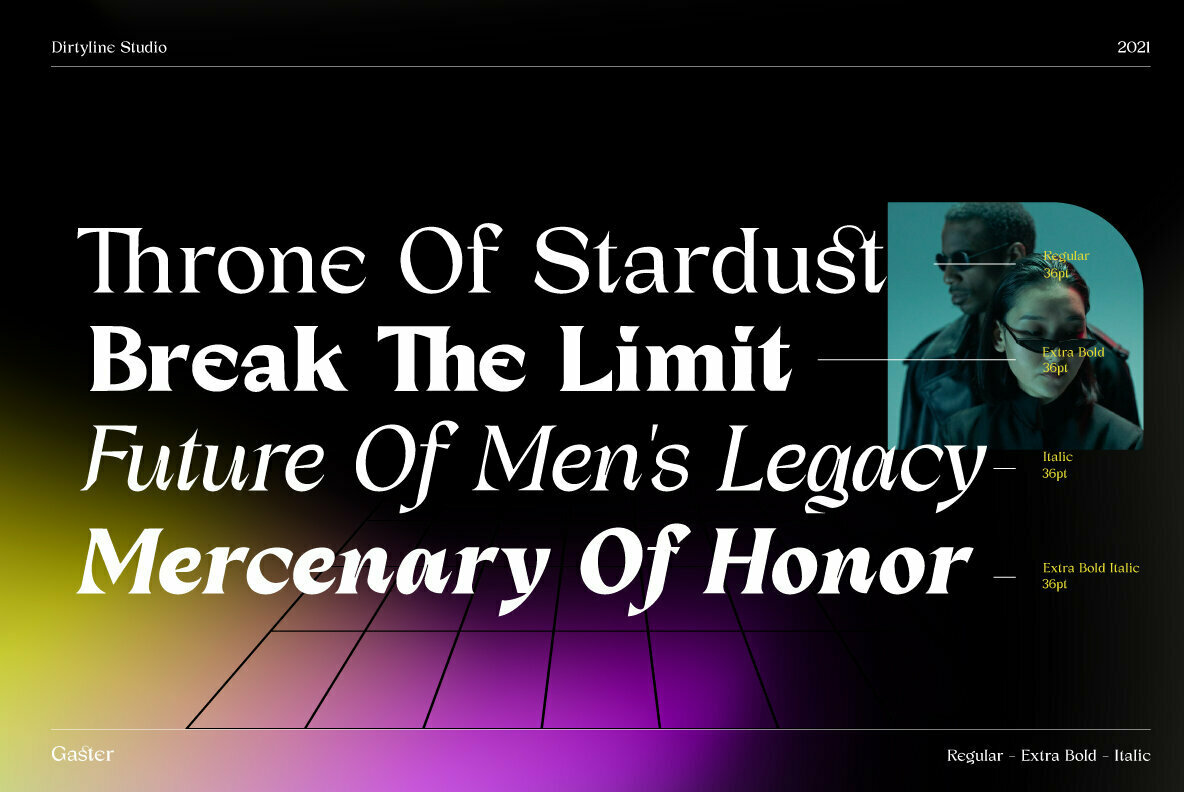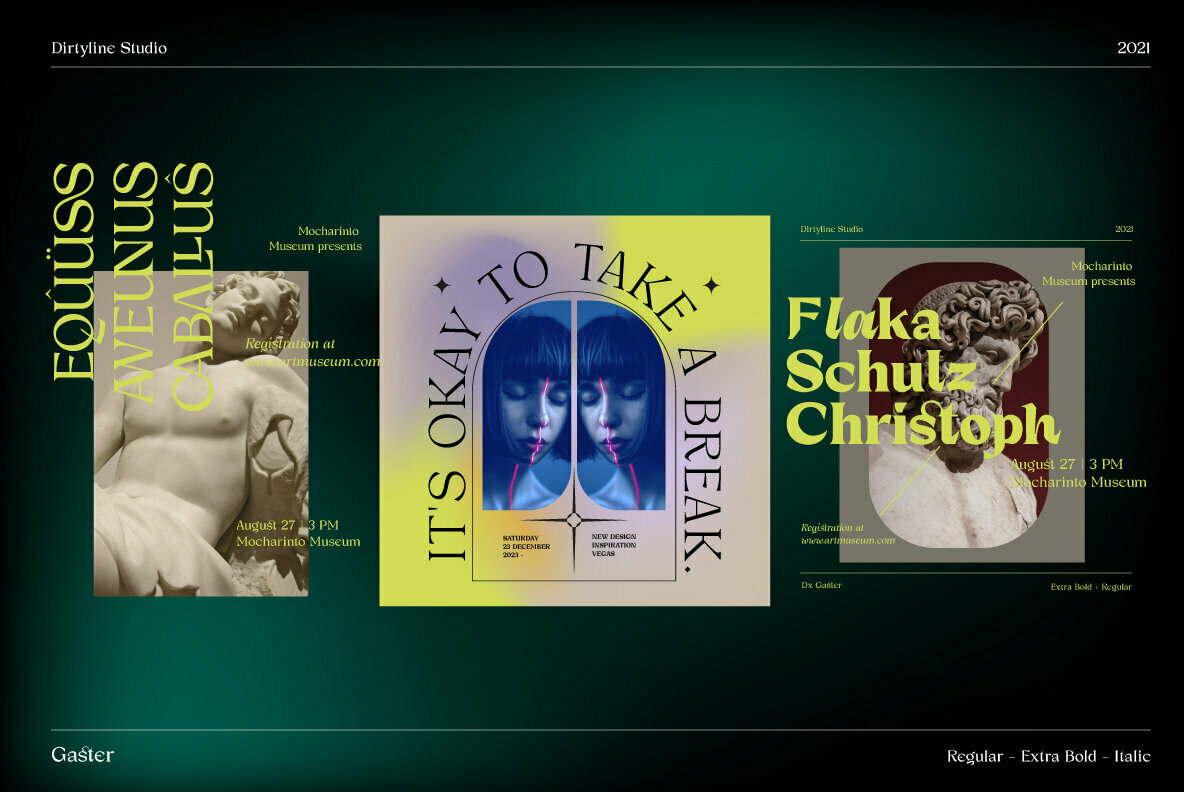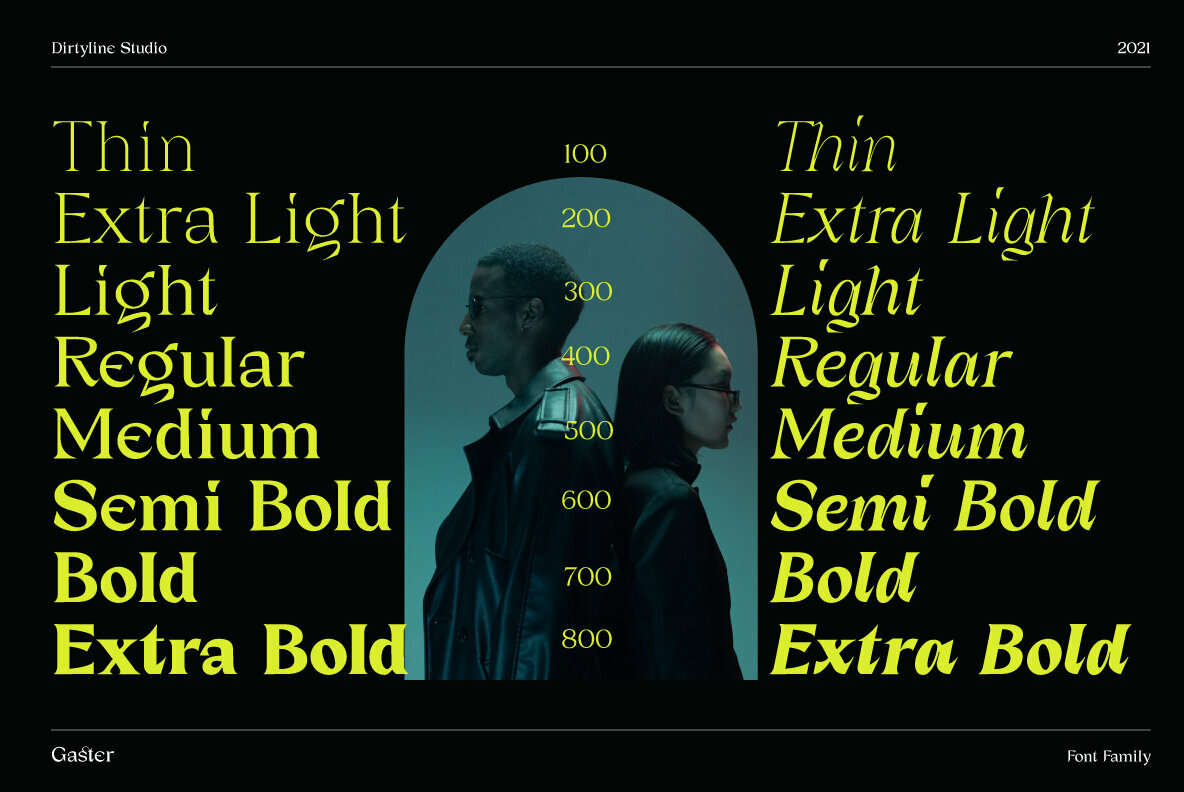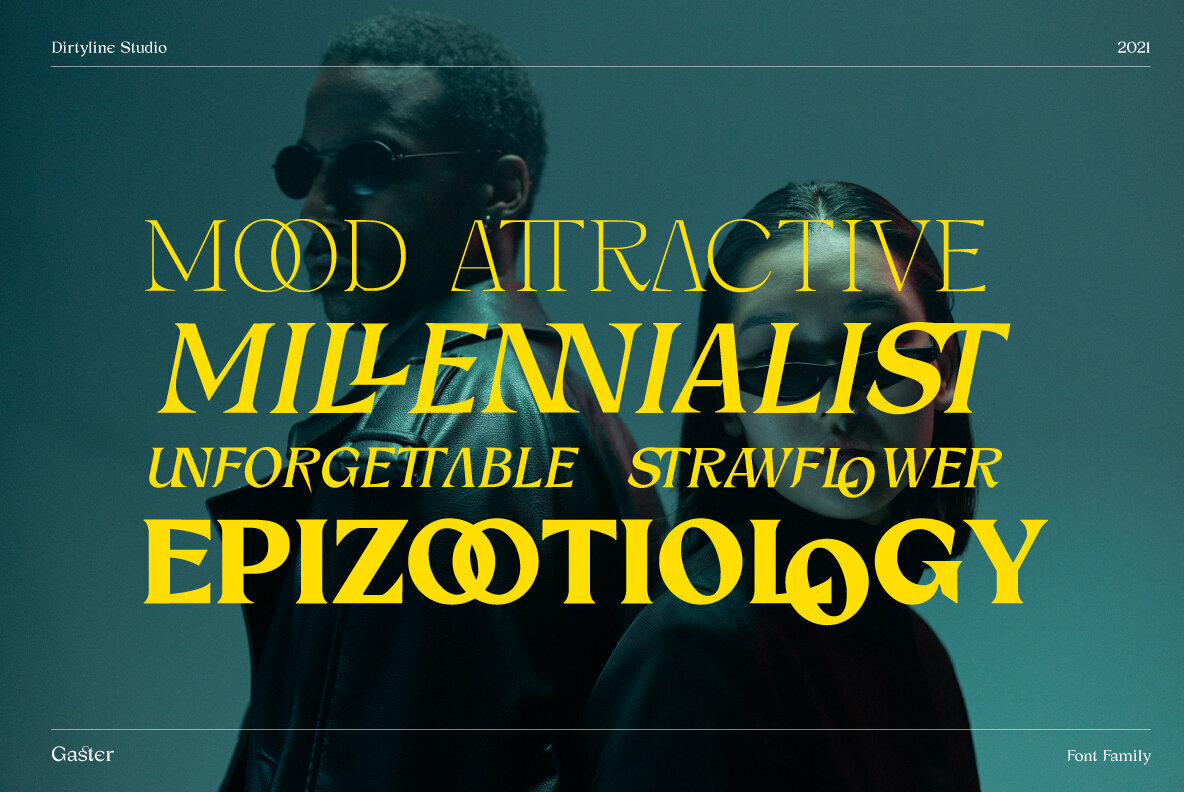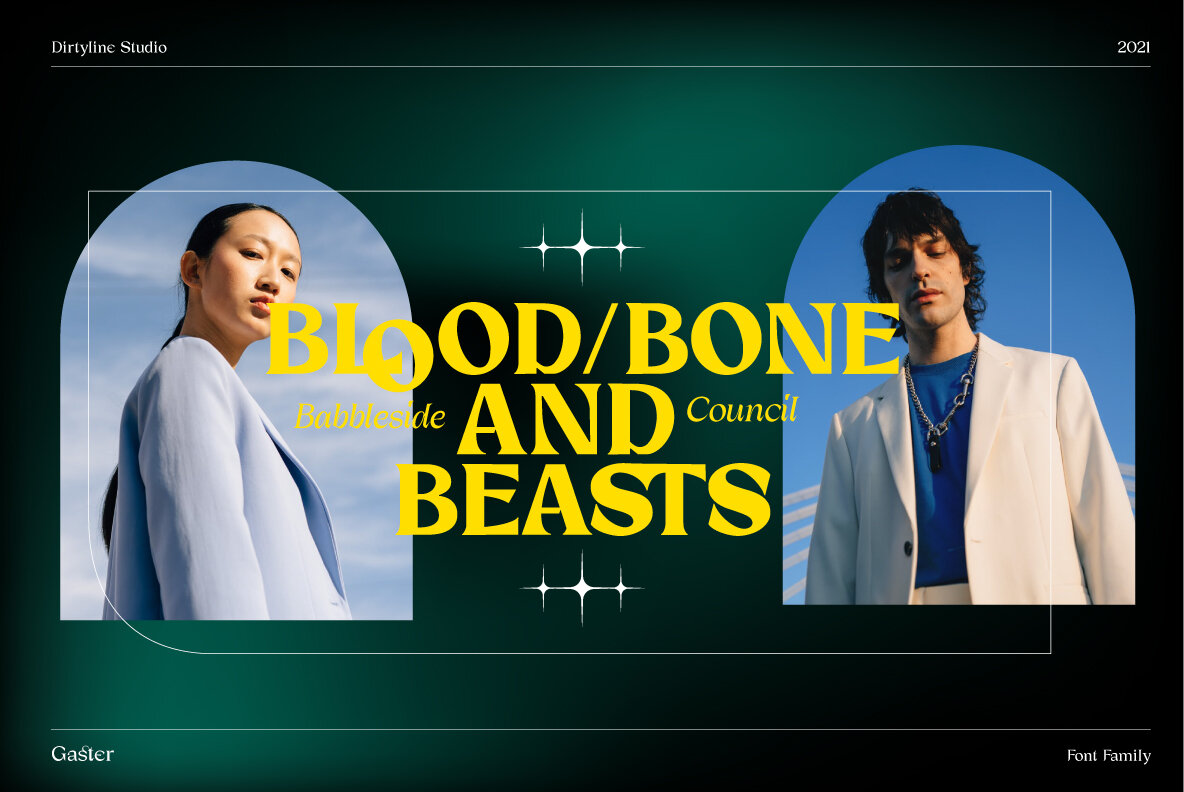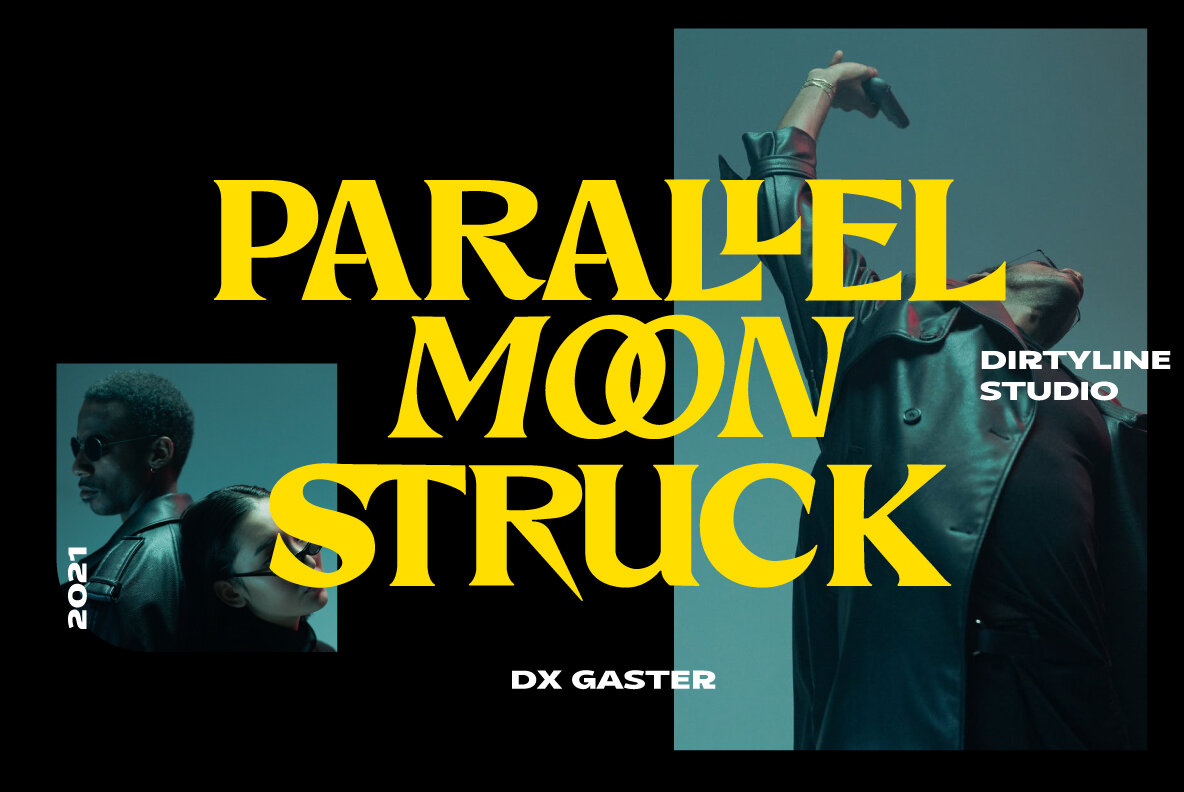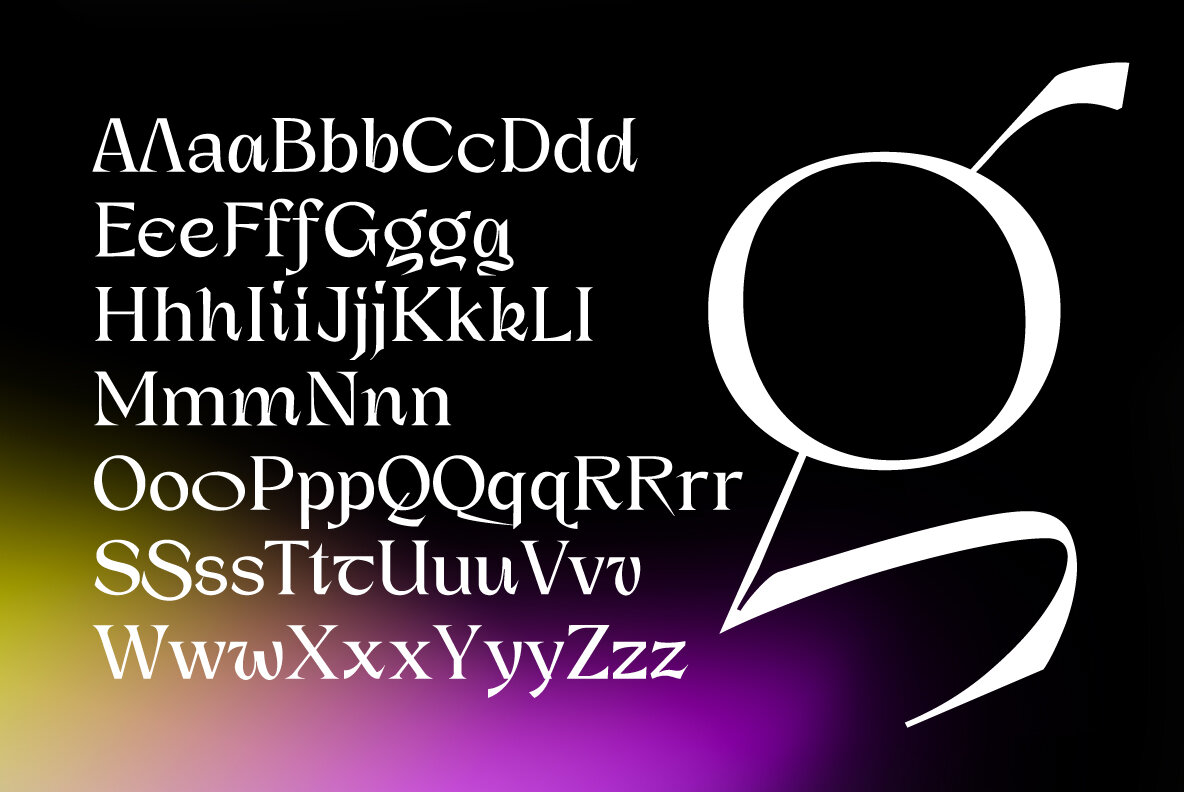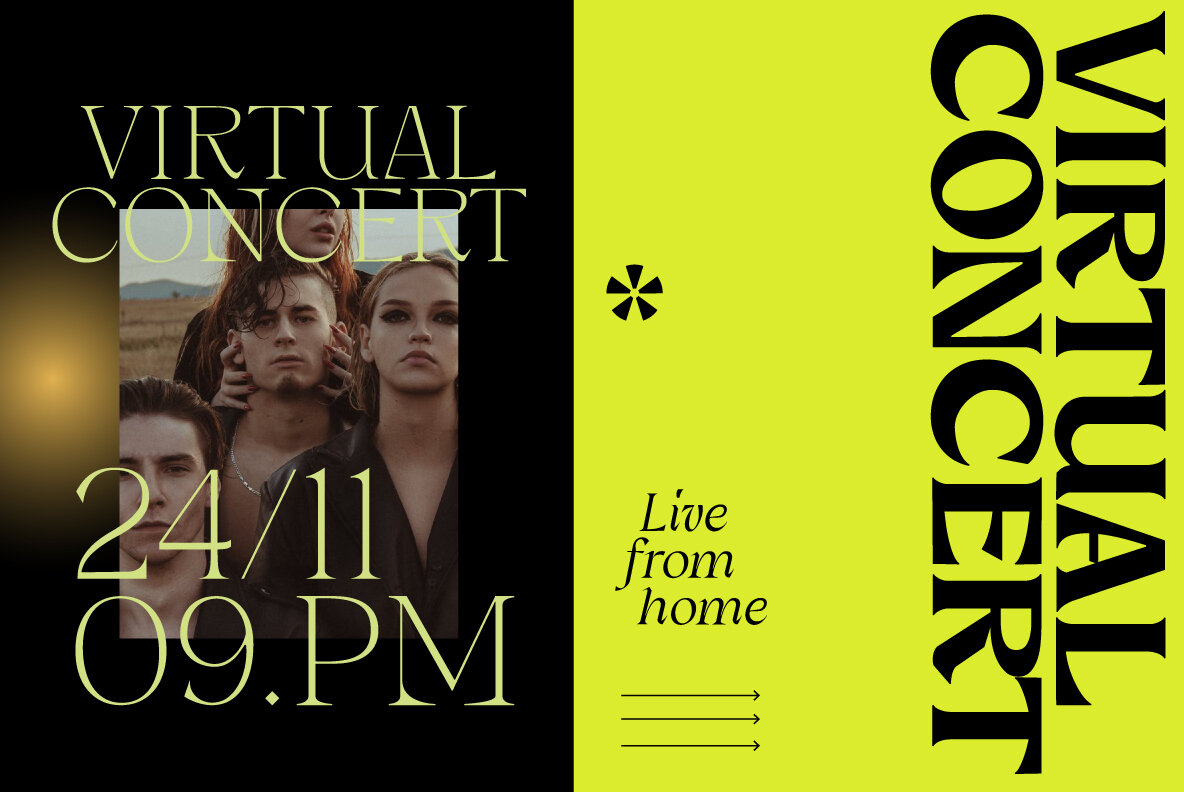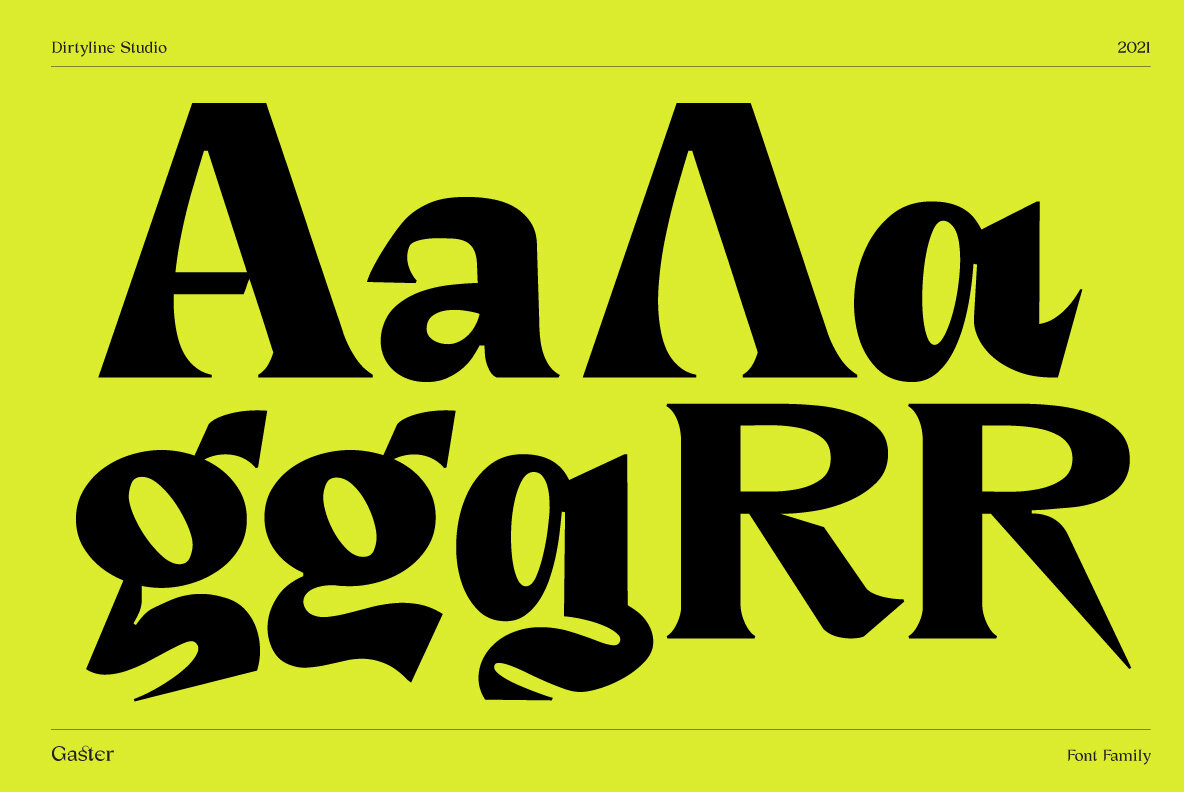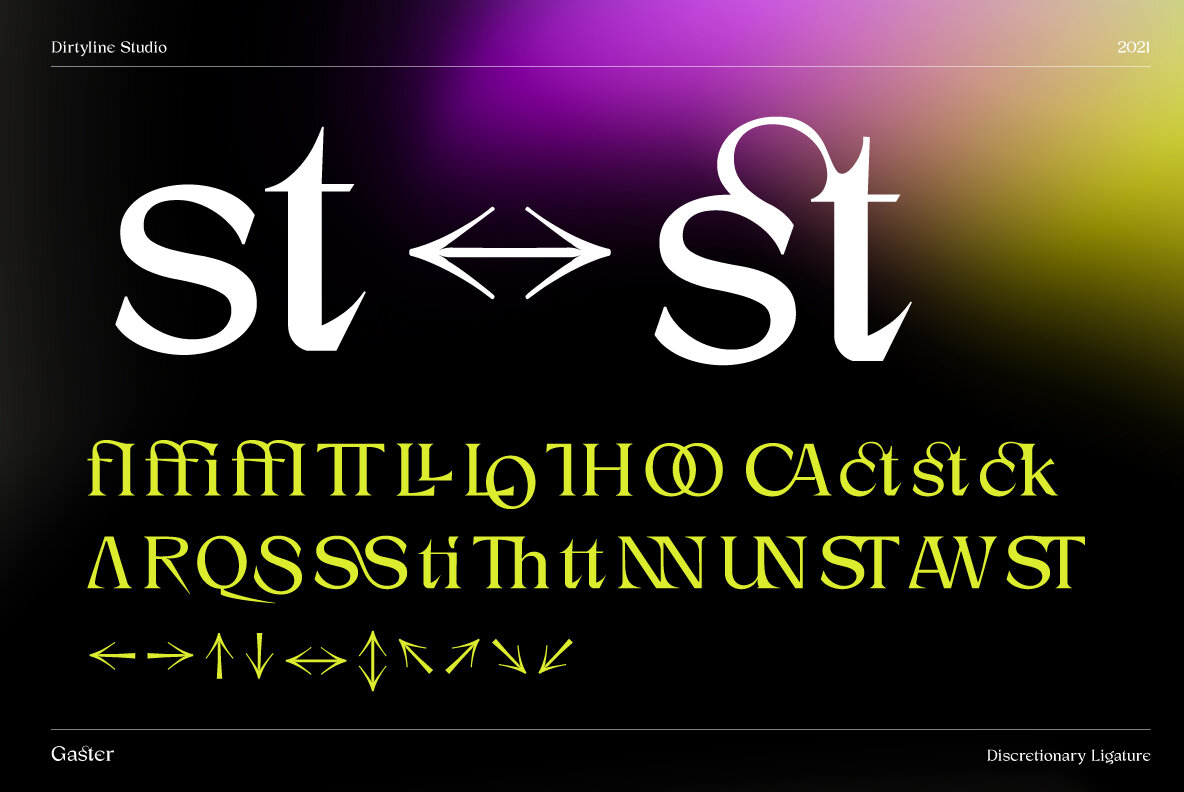
Dx Gaster Font
Dx Gaster is a high-contrast serif family with a strong impact and elegant typeface. Dx Gaster offers a wide variety of combinations for you to create with. Dx Gaster multiple alternates and swashes can add extra spice to your designs. A Strong sharp typeface specially designed for beautiful titles.
Dx Gaster comes with elegant style, strength, and contrasts, with features an Extended Latin character set of 404 glyphs covering over 86 languages. Dx Gaster is ready to make your projects look classic but contemporary, finely tuned but assertive, and elegant as the best luxury fashion.